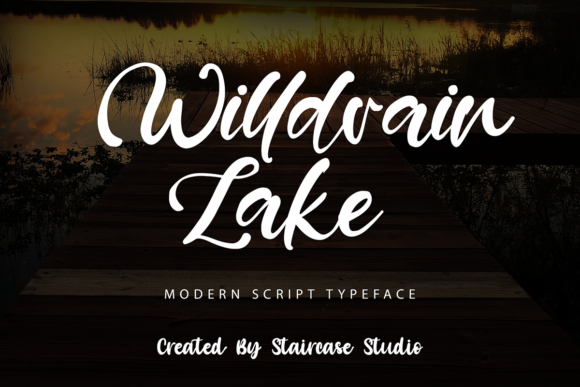
Sneak into the world of digital enchantment with Willdrain Lake, the modern script font that casts a spell on your designs. Each letter and number in this captivating collection is a whimsical masterpiece, ready to enchant your projects with a touch of sophistication and style.
But wait, there's more to this font than meets the eye! Willdrain Lake is not just a tool for shaping words—it's an invitation to elevate your creativity to new heights. Whether you're a master of logotypes or a digital lettering artist, this font will inspire you to weave tales that capture hearts and ignite imaginations.
Picture your brand's logo, adorned with the alluring curves of Willdrain Lake, standing out in the digital realm. Imagine your posters and magazines adorned with its enchanting characters, drawing readers into a world of captivating stories. And let's not forget the captivating apparel and signage that will turn heads and leave a lasting impression.
So, why settle for ordinary fonts when you can embrace the extraordinary? Immerse yourself in the world of Willdrain Lake and unlock the power to create designs that resonate, designs that captivate, and designs that leave an indelible mark on the digital universe. Let your creativity flow like the graceful strokes of this captivating script, and prepare to witness the transformative power of Willdrain Lake!